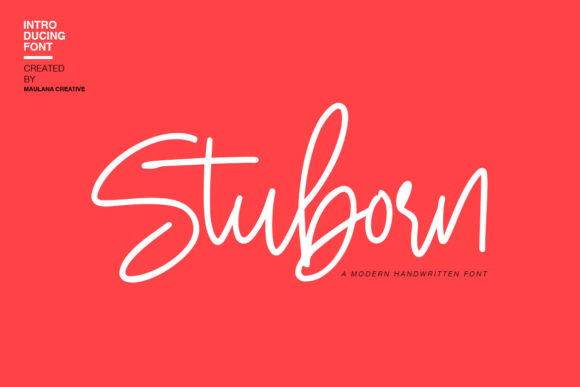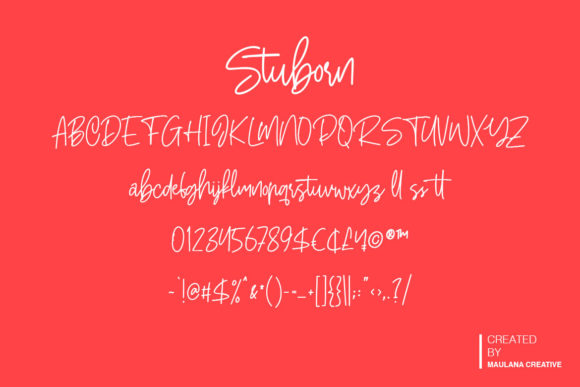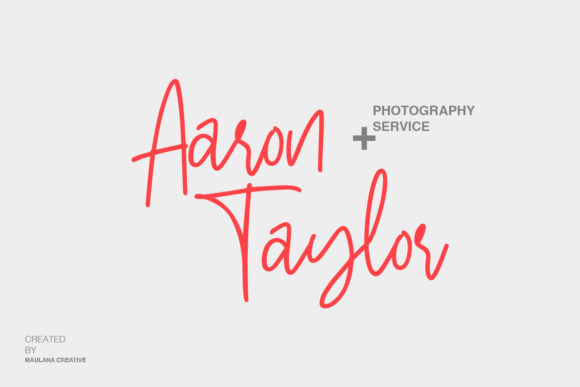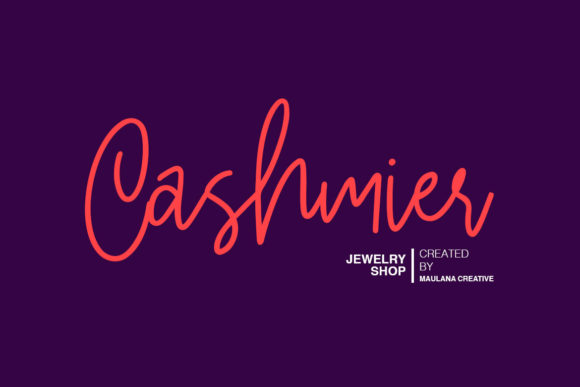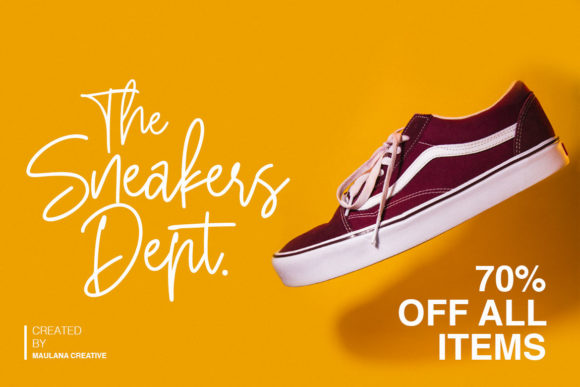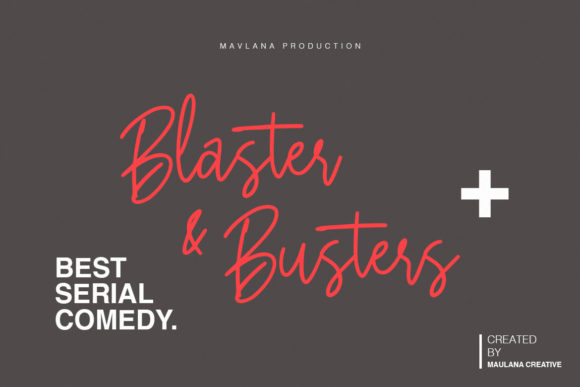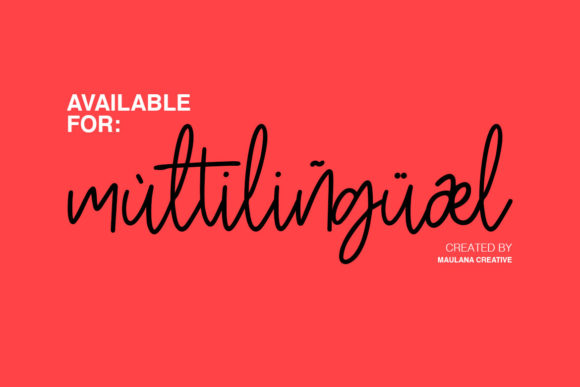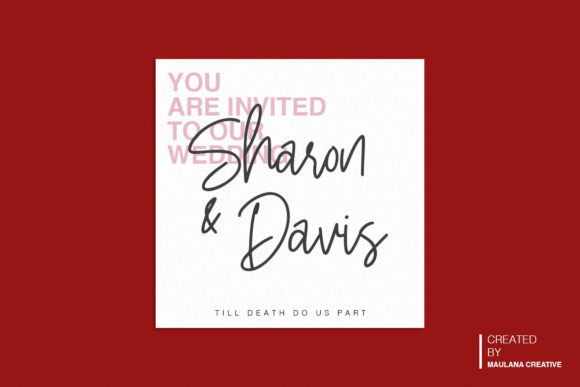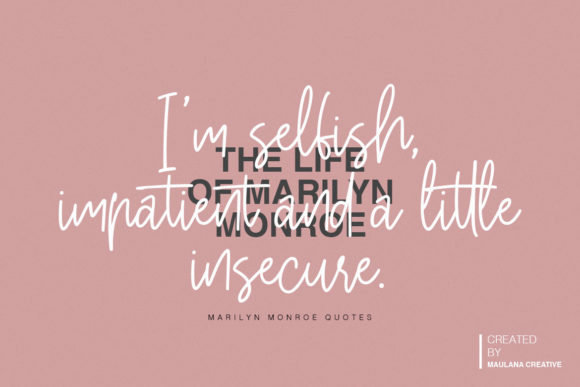
Stuborn Font
About Stuborn Font
Stuborn is a unique script font that gives your designs an authentic handcrafted feel. It is perfectly suited for a wide variety of projects!